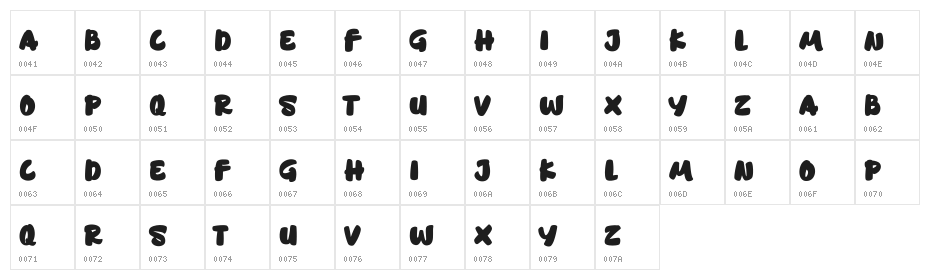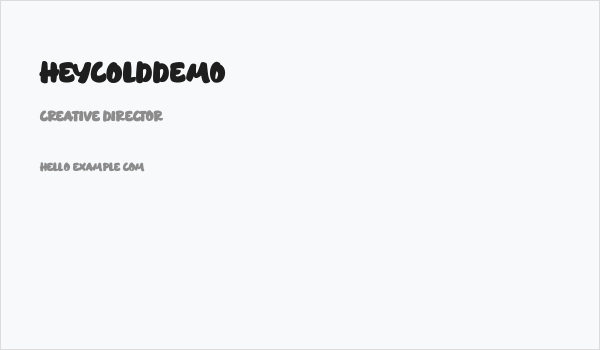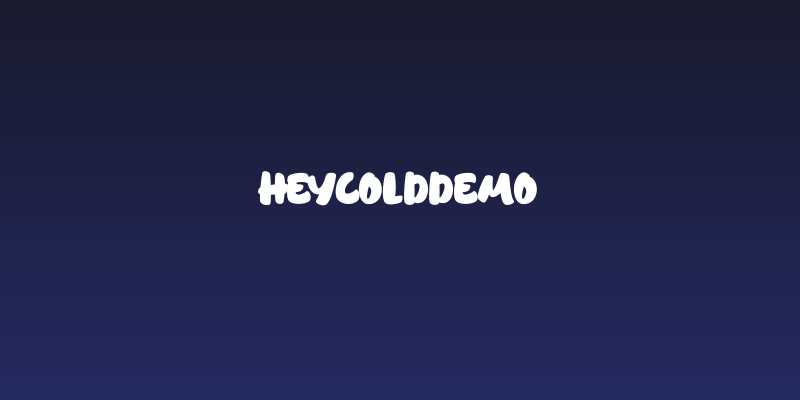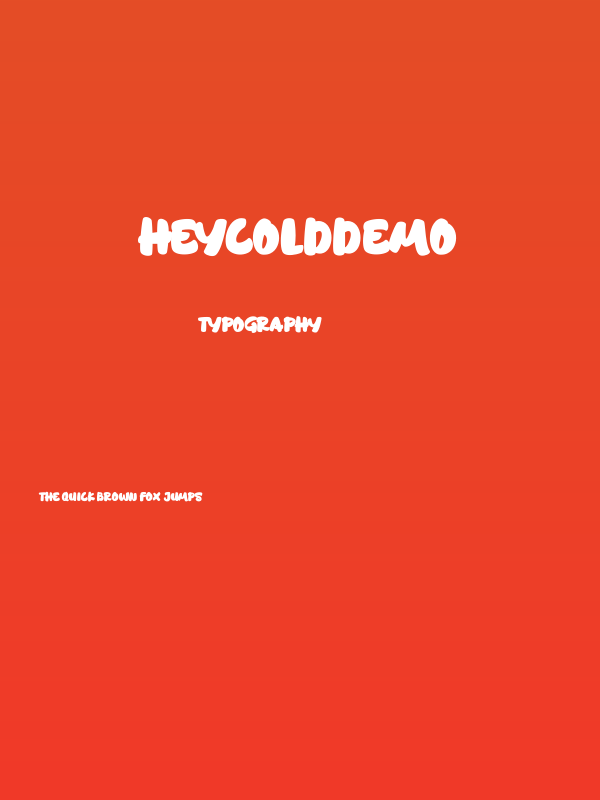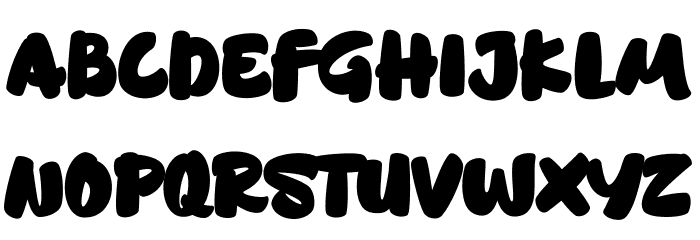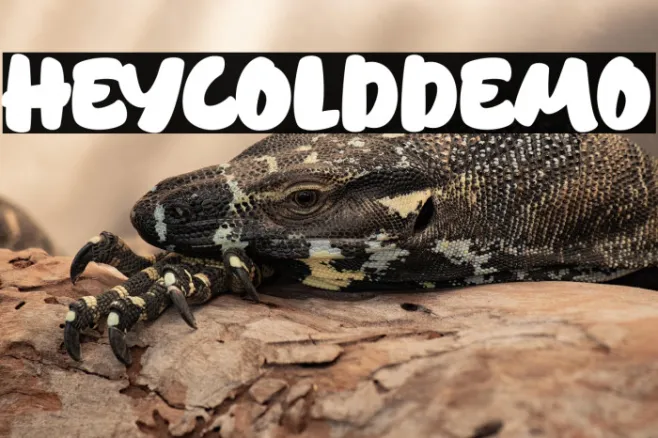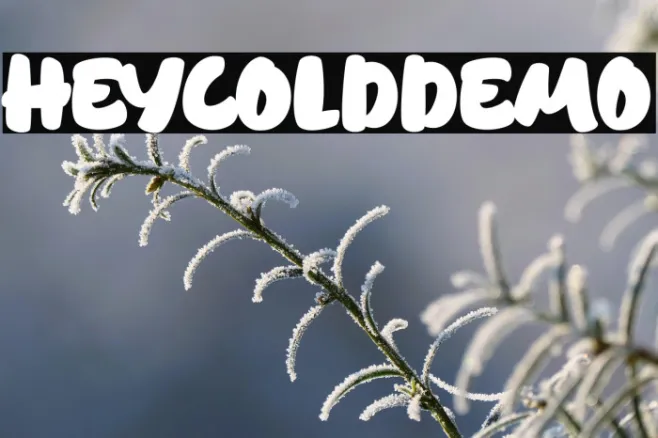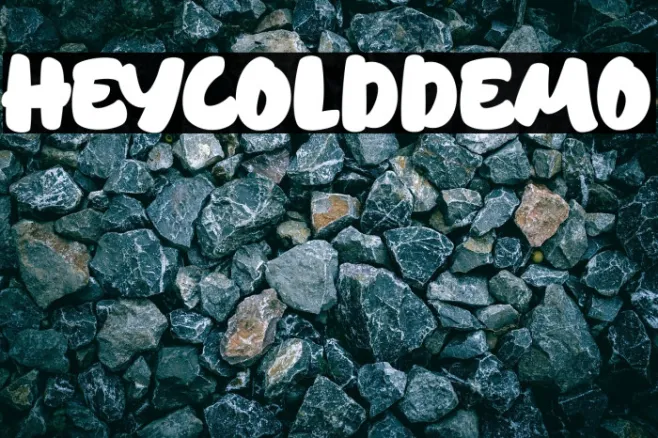
HeycoldDEMO Font
HeycoldDEMO Description
This font features a bold and playful script style with thick, rounded strokes that convey a sense of fun and energy. The characters are closely spaced, creating a cohesive and dynamic appearance. The uppercase and lowercase letters maintain a consistent flow, with smooth curves and a slightly informal touch. This font is ideal for projects that require a lively and engaging aesthetic, such as children's books, playful branding, or event invitations. Its bold presence ensures readability while adding a unique flair to any design.
| Proposed Projects | Children's books, playful branding, event invitations, posters, and social media graphics. |